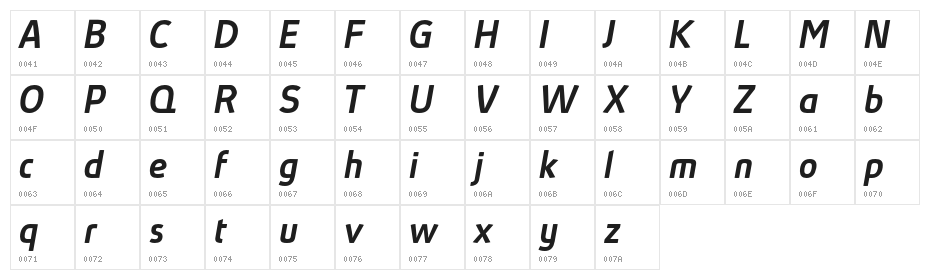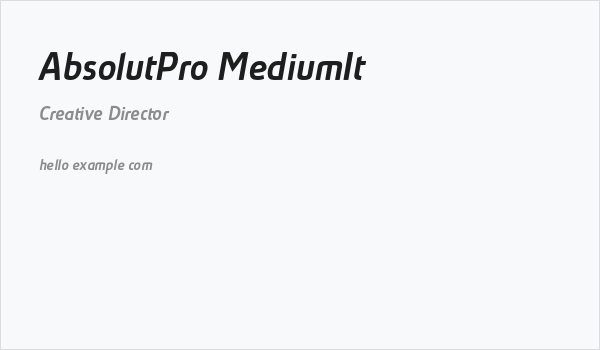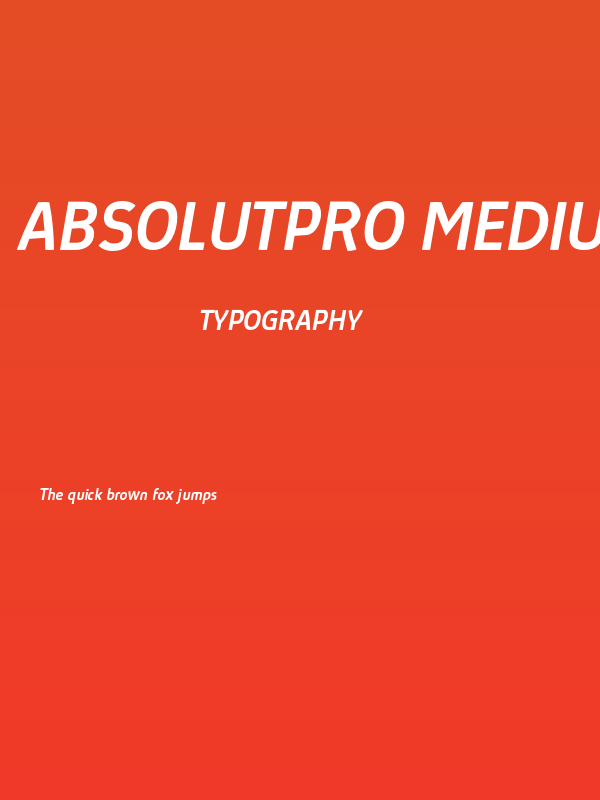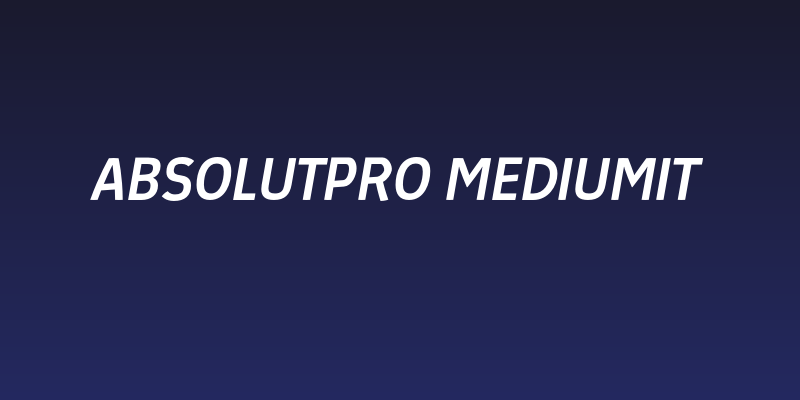
AbsolutPro-MediumIt Font
AbsolutPro-MediumIt Description
This font exhibits a modern and sleek design with a slightly italicized style, giving it a dynamic and forward-moving appearance. The characters are well-proportioned with a consistent stroke width, contributing to a clean and professional look. The uppercase letters are bold and assertive, while the lowercase letters maintain a smooth and approachable feel. The font's overall aesthetic is contemporary, making it suitable for a variety of digital and print applications. Its clear legibility and stylish flair make it an excellent choice for branding, advertising, and editorial design.
Overall StyleModern
Use CaseHeadlines, Logos, Digital media
Proposed ProjectsIdeal for branding, advertising, editorial design, and digital media.